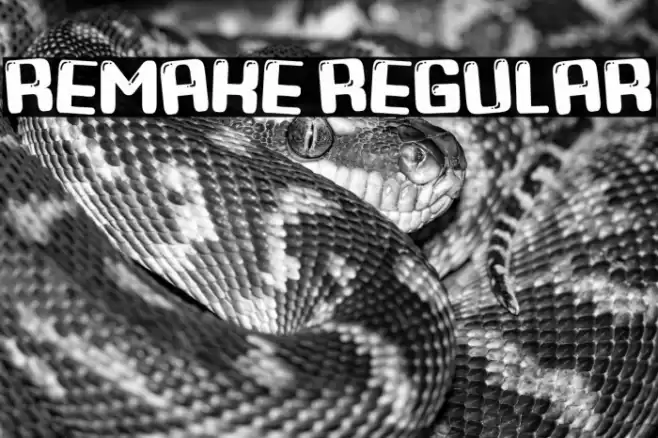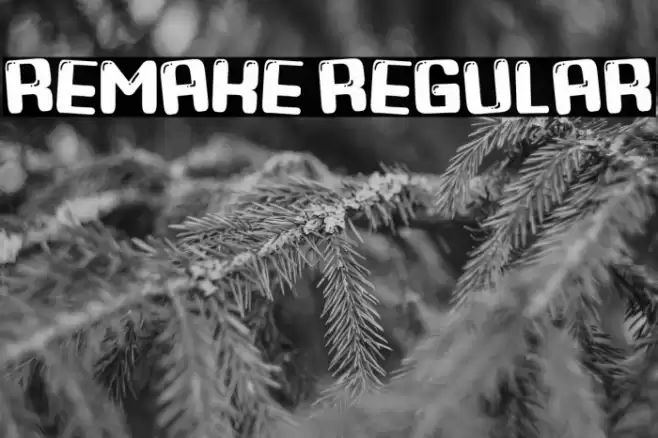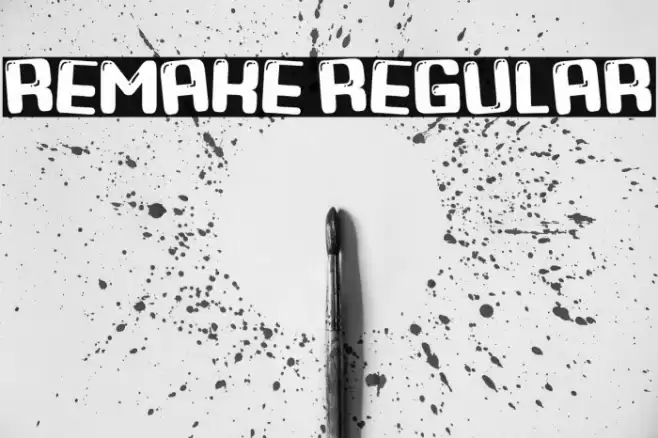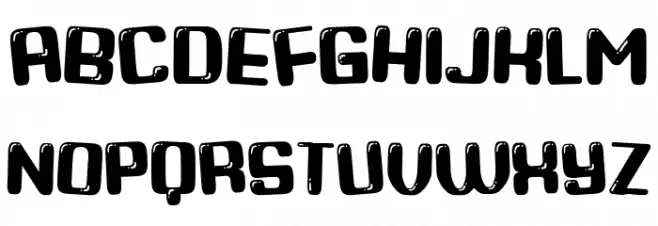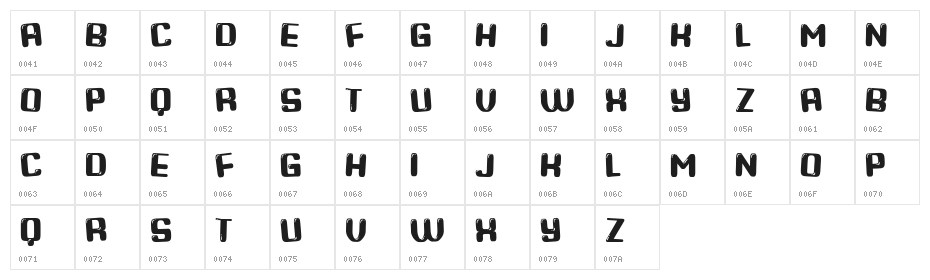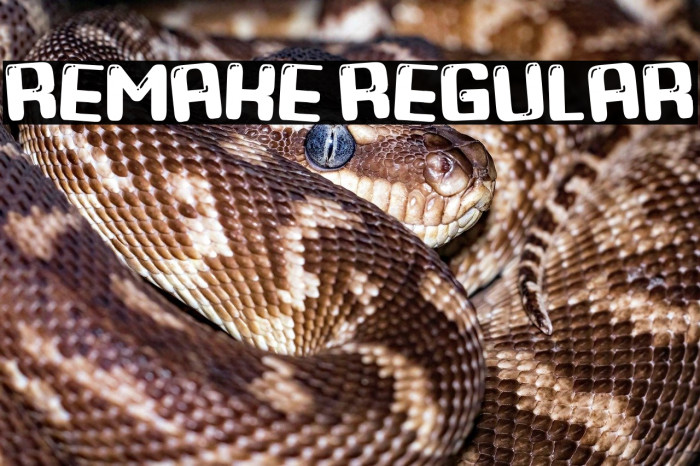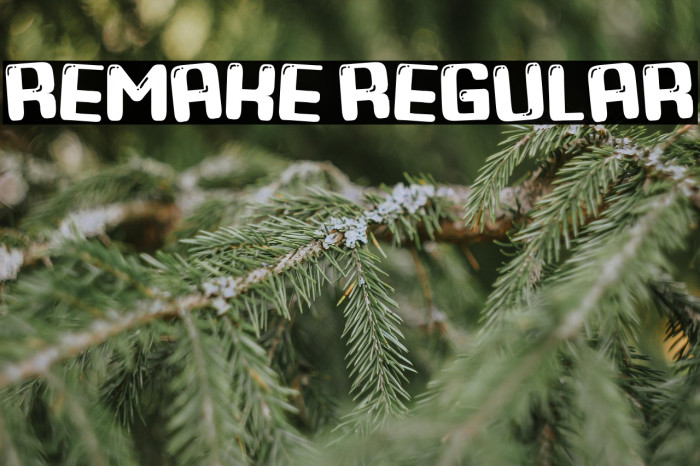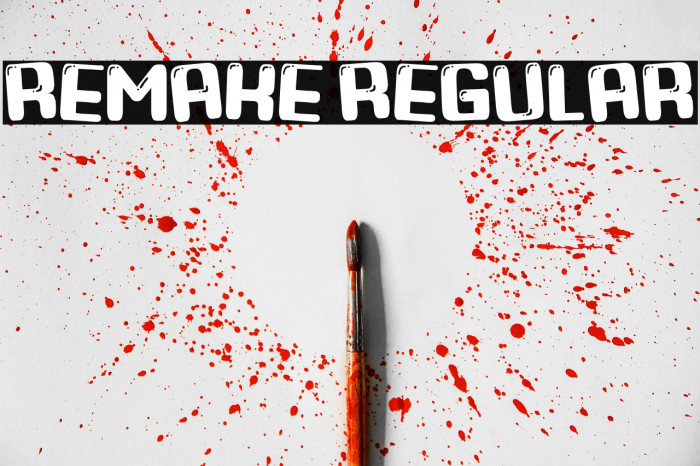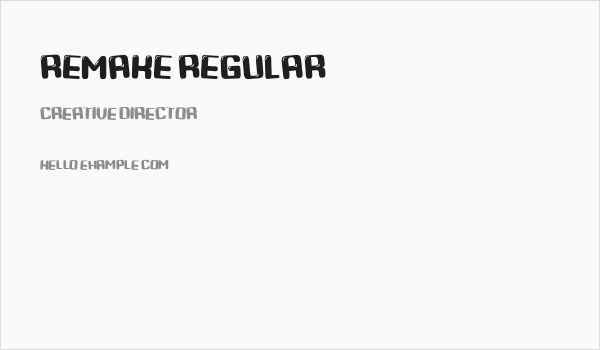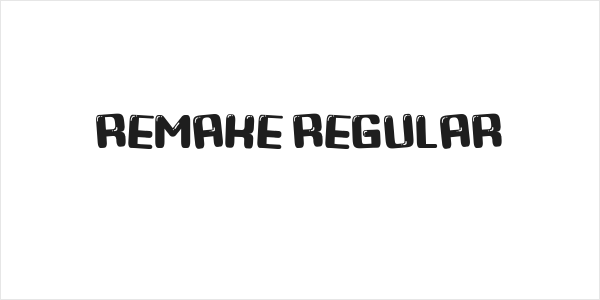
Remake Regular Font
Remake Regular Description
This font features a bold and playful design with rounded edges and a slightly irregular structure, giving it a hand-drawn appearance. The letters are thick and substantial, with a consistent weight throughout, adding to its boldness. The style is reminiscent of retro or vintage aesthetics, making it suitable for projects that require a touch of nostalgia or a fun, informal vibe. The characters are closely spaced, enhancing the compact and cohesive look of the text. Its unique style makes it stand out, perfect for creative and eye-catching designs.
A bold, playful font with a hand-drawn, vintage feel from Uncategorized fonts.
- Font: Remake Regular
- Proposed Projects: Ideal for posters, logos, children's books, and retro-themed designs.
- Character Spacing: Tight
- Overall Style: Vintage